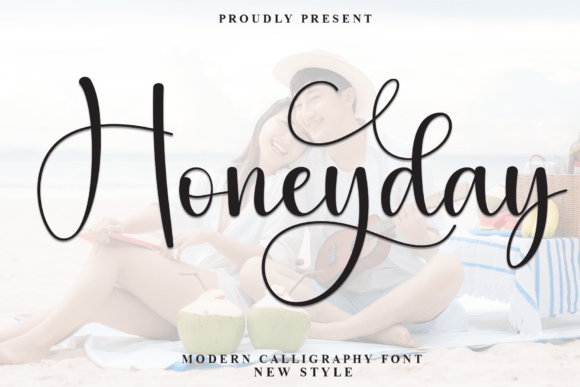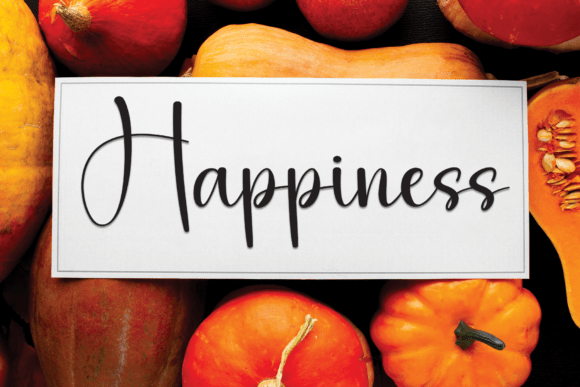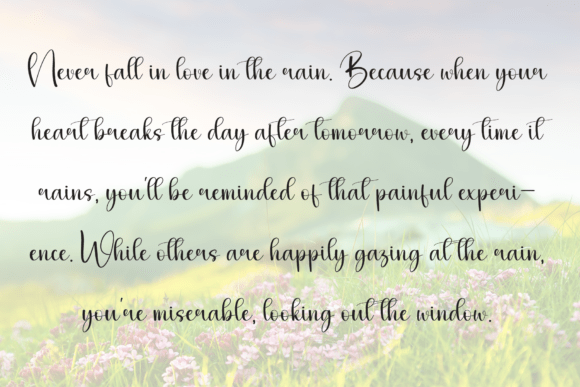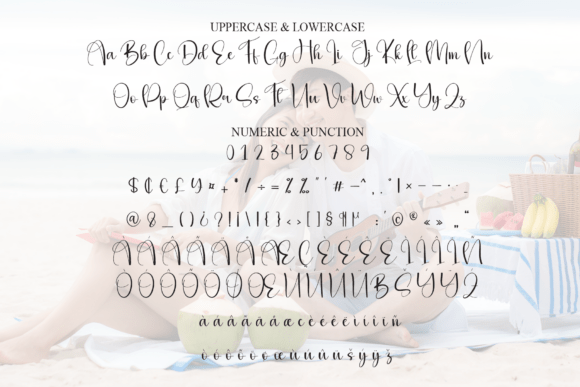
Have you ever found yourself scribbling down your summer bucket list in a flowy journal, surrounded by the warmth and tranquility of a sunny day? For designers, those carefree moments can spark a creative vision that translates into captivating designs. One such design that embodies the essence of a breezy-and-blissful soul is the Honeyday Font.
This romantic calligraphy typeface is a masterful blend of elegance and playfulness, making it the perfect choice for a variety of design projects, from seaside wedding invitations to high-impact social media headers. With its unique combination of tall, monolinear letterforms and hand-drawn loops, the Honeyday Font adds a touch of whimsy and sophistication to any design.
As a designer, you’re always on the lookout for the perfect font to elevate your work and make it truly special. The Honeyday Font is a valuable addition to any design arsenal, offering a versatile and stylish solution for a range of creative projects.
- Unique Characteristics: This font features a unique blend of modern and vintage elements, with intricate details and subtle texture effects.
Honeyday Font Review
As a designer, I’ve had the chance to work with a lot of fonts, but Honeyday Font is one that has really caught my eye. Here’s my honest review:
- Cursive flair: Honeyday Font has a beautiful cursive style that adds a touch of elegance to any design. It’s perfect for invitations, quotes, and other creative projects.
- Font versatility: This font is available in a range of styles, from script to display, making it easy to use in a variety of contexts.
- High-quality design: The font is well-designed, with clean lines and a clear, readable typeface.
- Limited language support: Honeyday Font may not support all languages, which could be a limitation for designers working on international projects.
- Not ideal for body text: While Honeyday Font is great for headings and titles, it may not be the best choice for body text due to its decorative style.
Overall, I’m really impressed with Honeyday Font. It’s a great addition to any designer’s toolkit, but it’s worth keeping in mind its limitations when choosing the right font for a project. With some careful selection, Honeyday Font can add a touch of magic to even the most mundane designs.